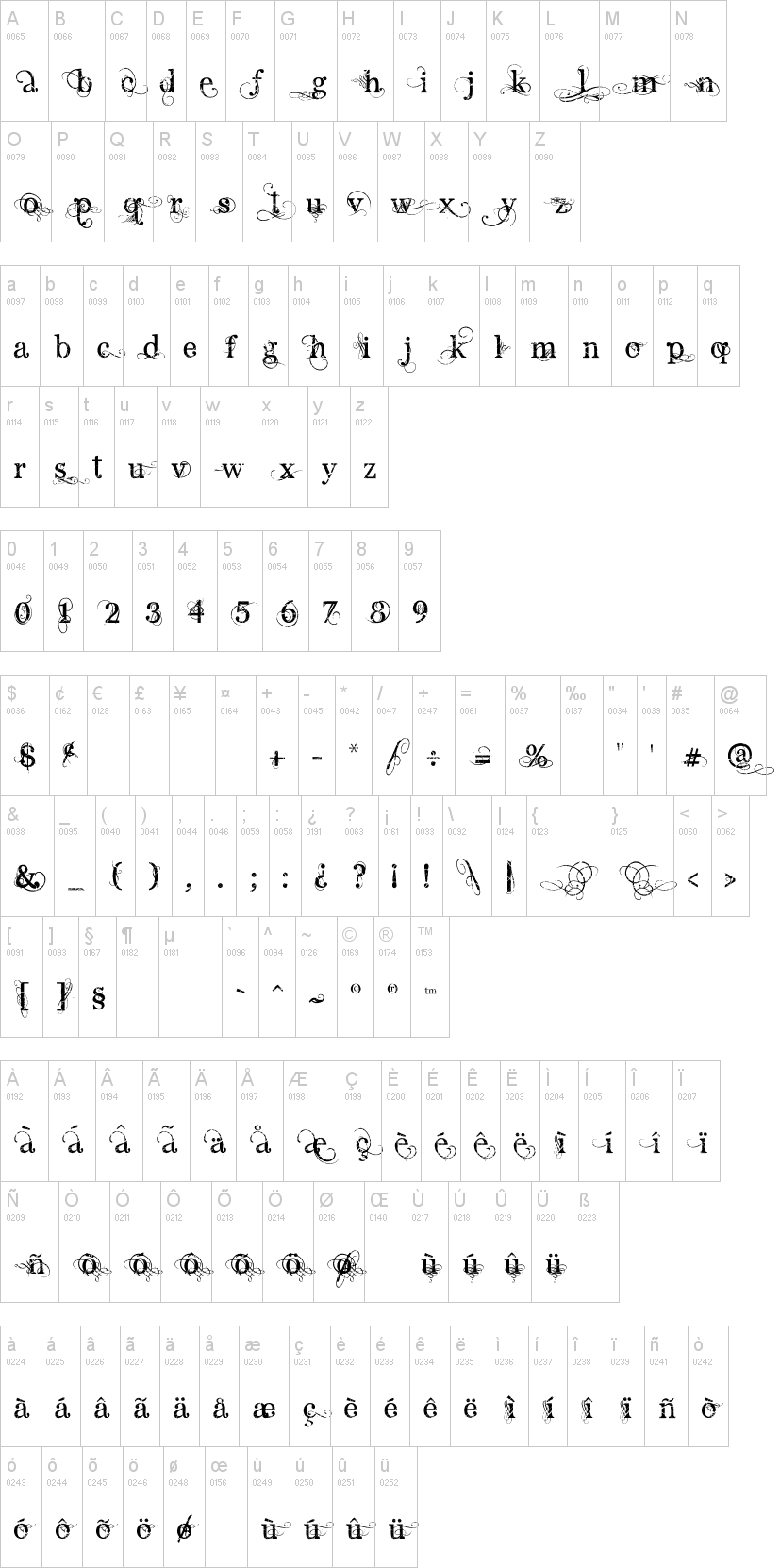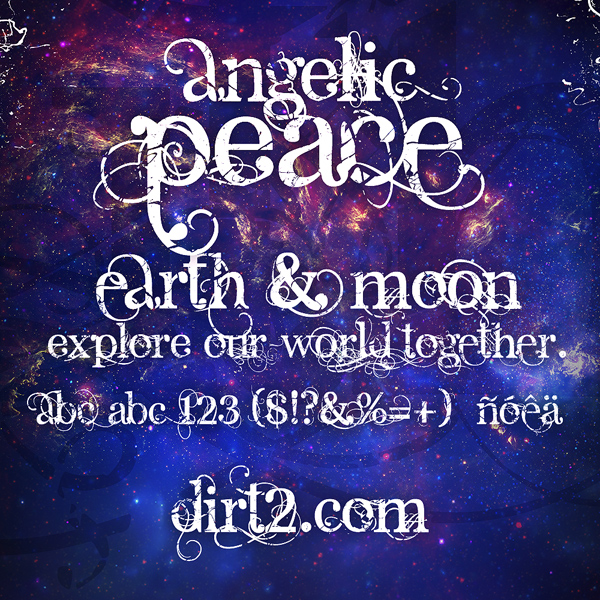
This is a revised version of Angelic War and is based off many characters in Angelic Serif. I redid the font so that the letters were a bit more updated and unique as well as to be able to reduce the amount of noise when the font was printed on products.